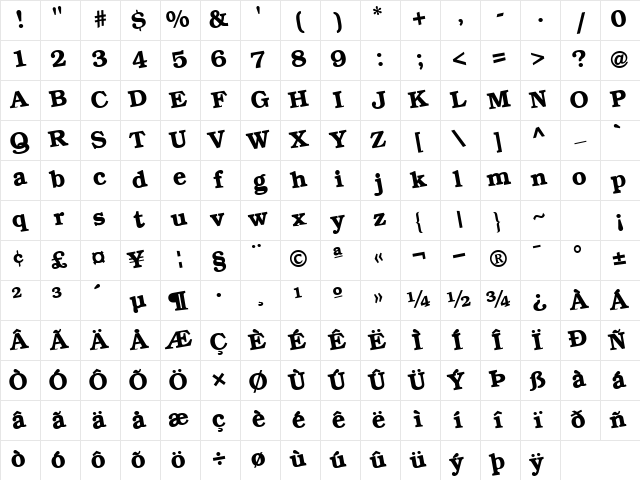
Type Regular
Type Family
Type Regular
Complete Type Regular glyph index. Displaying only characters natively supported by Type Regular font.
Design Context for Type
Type is a composed and adaptable typeface that performs quietly and consistently across a wide range of design contexts.
Pro Tip: Use Type in both headline and body roles to test its range before committing to a single application.